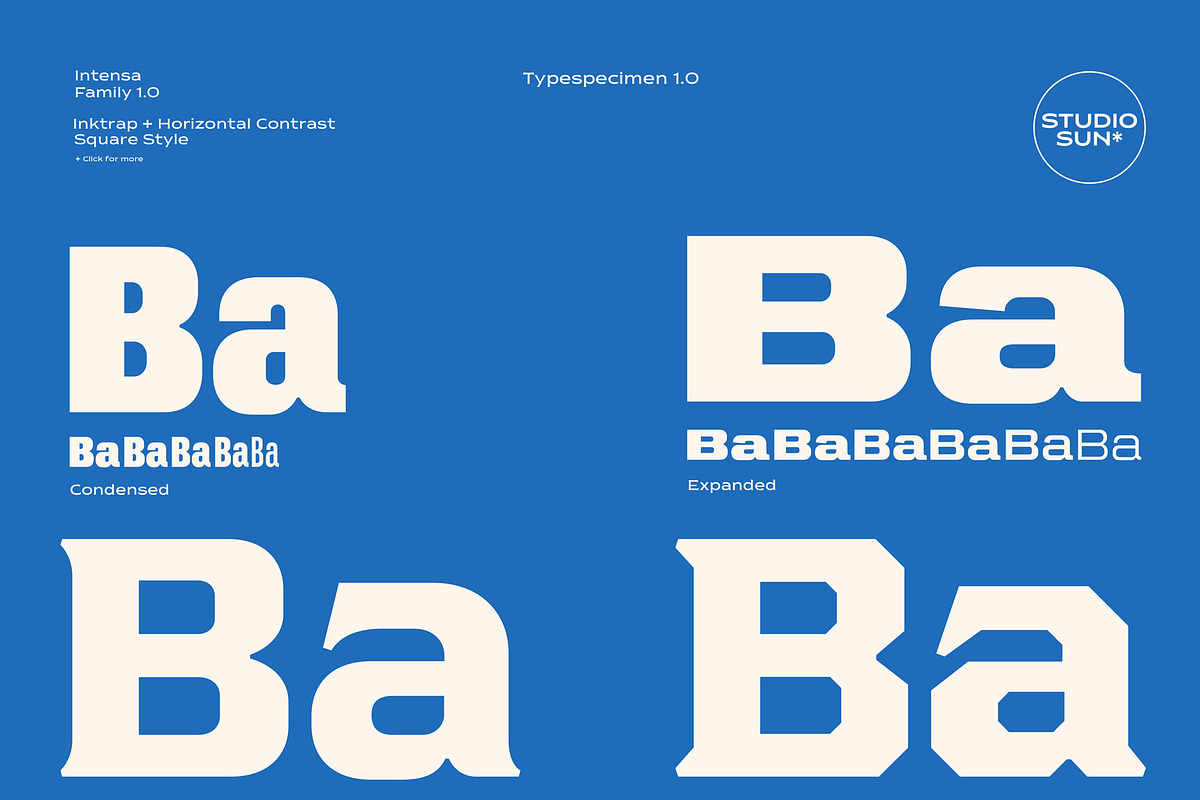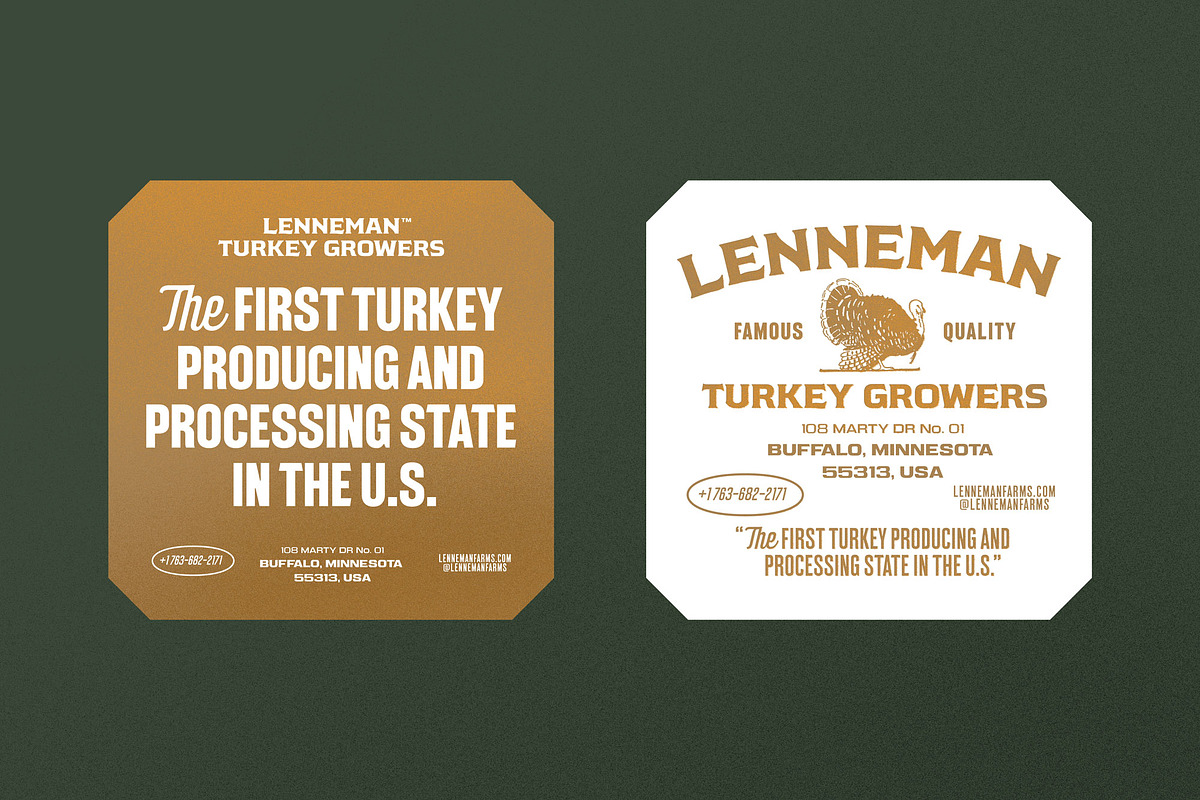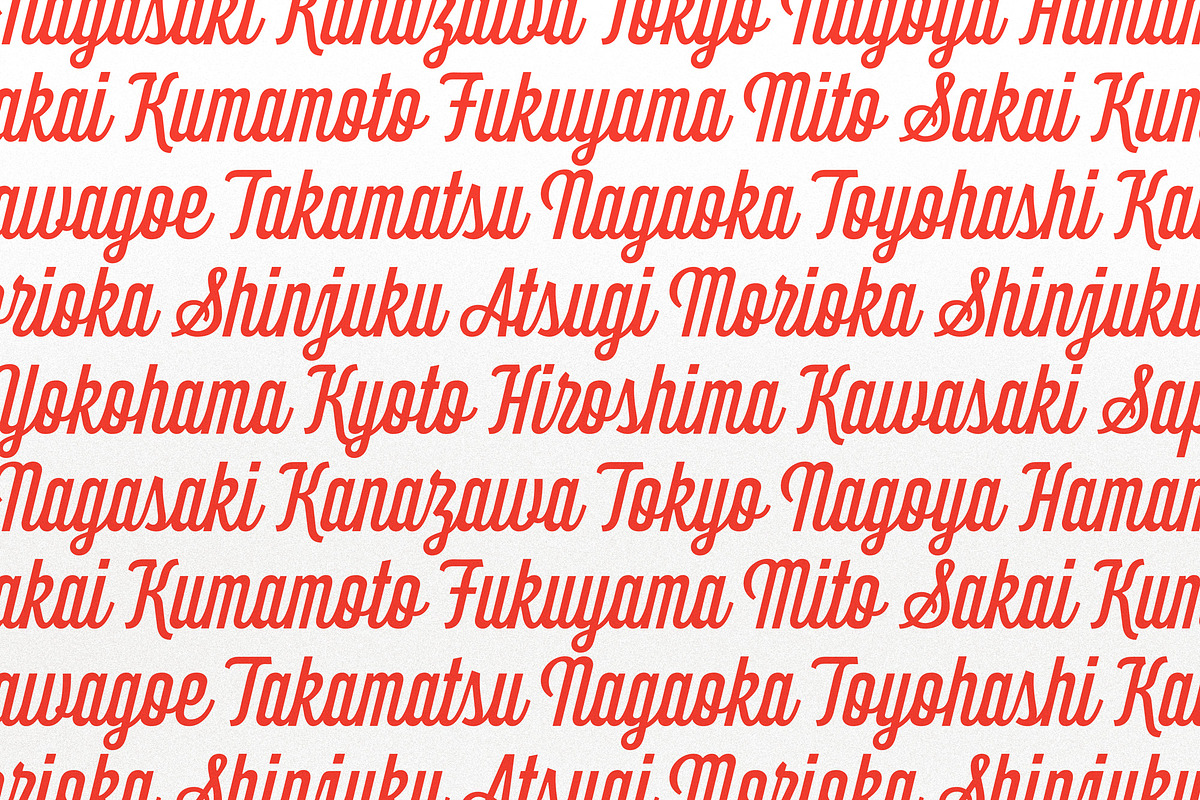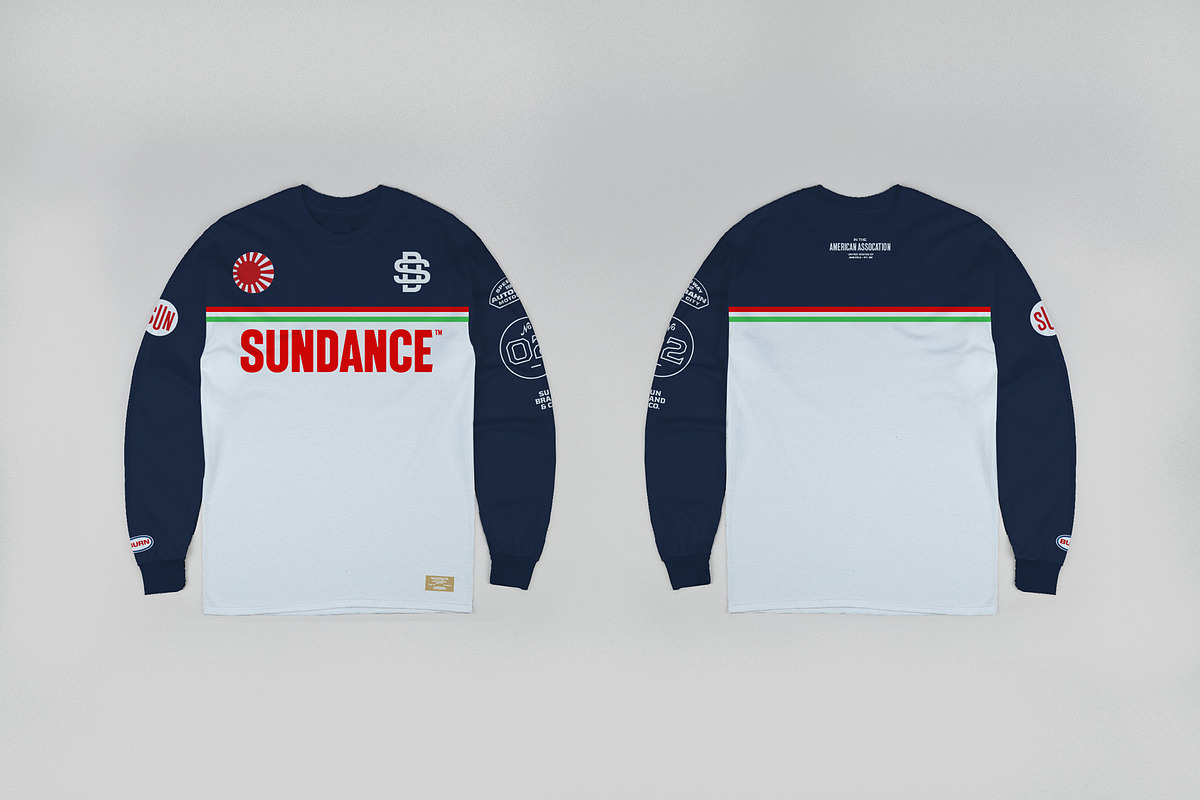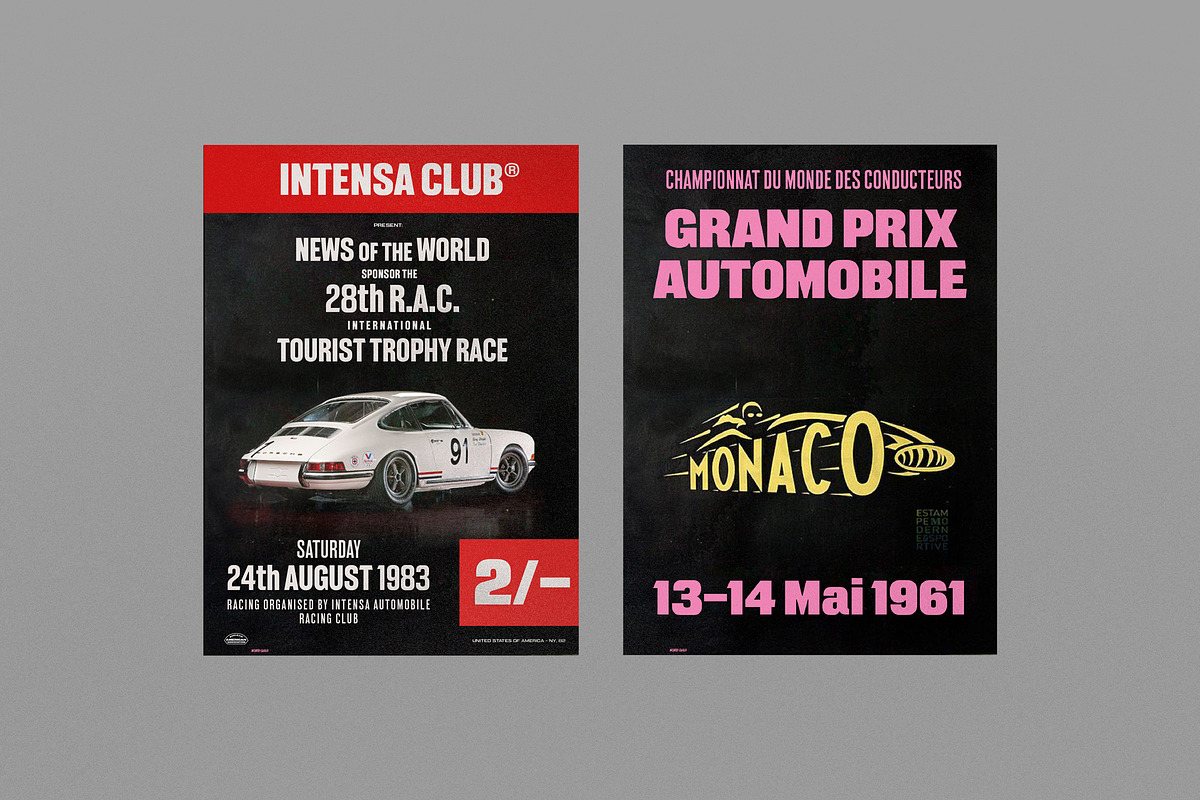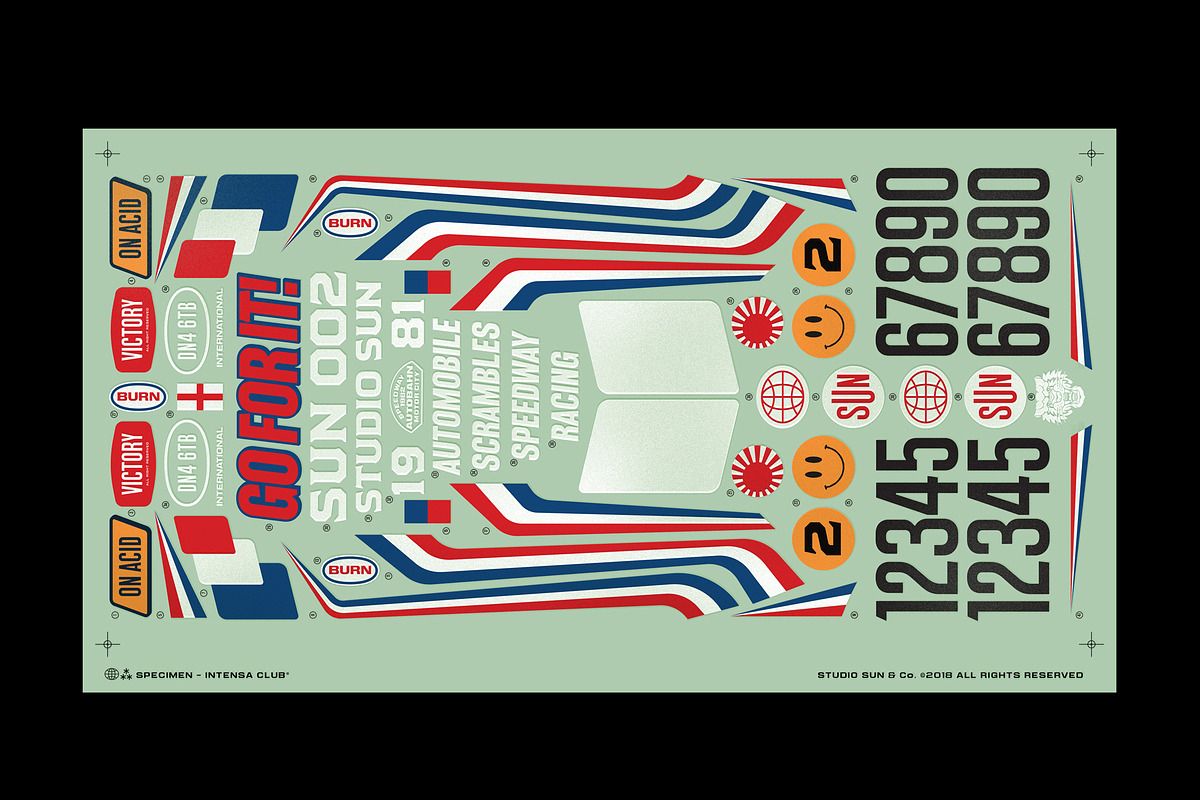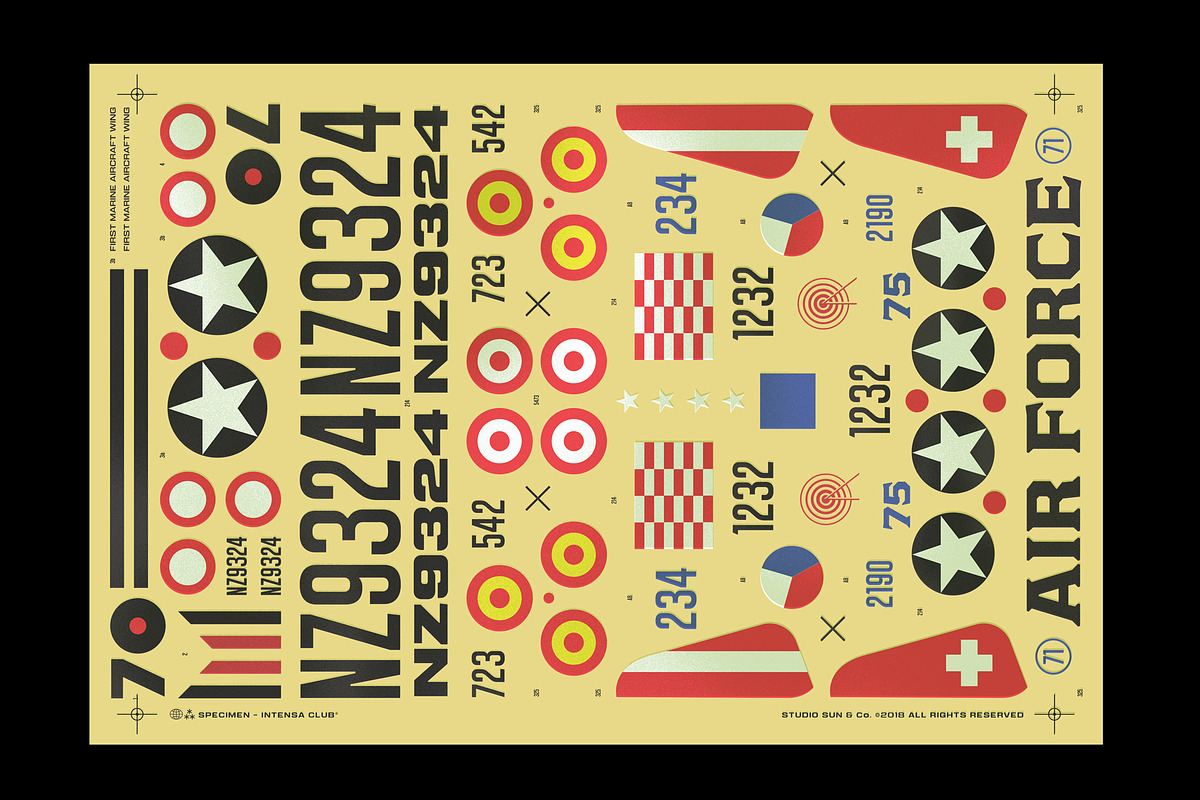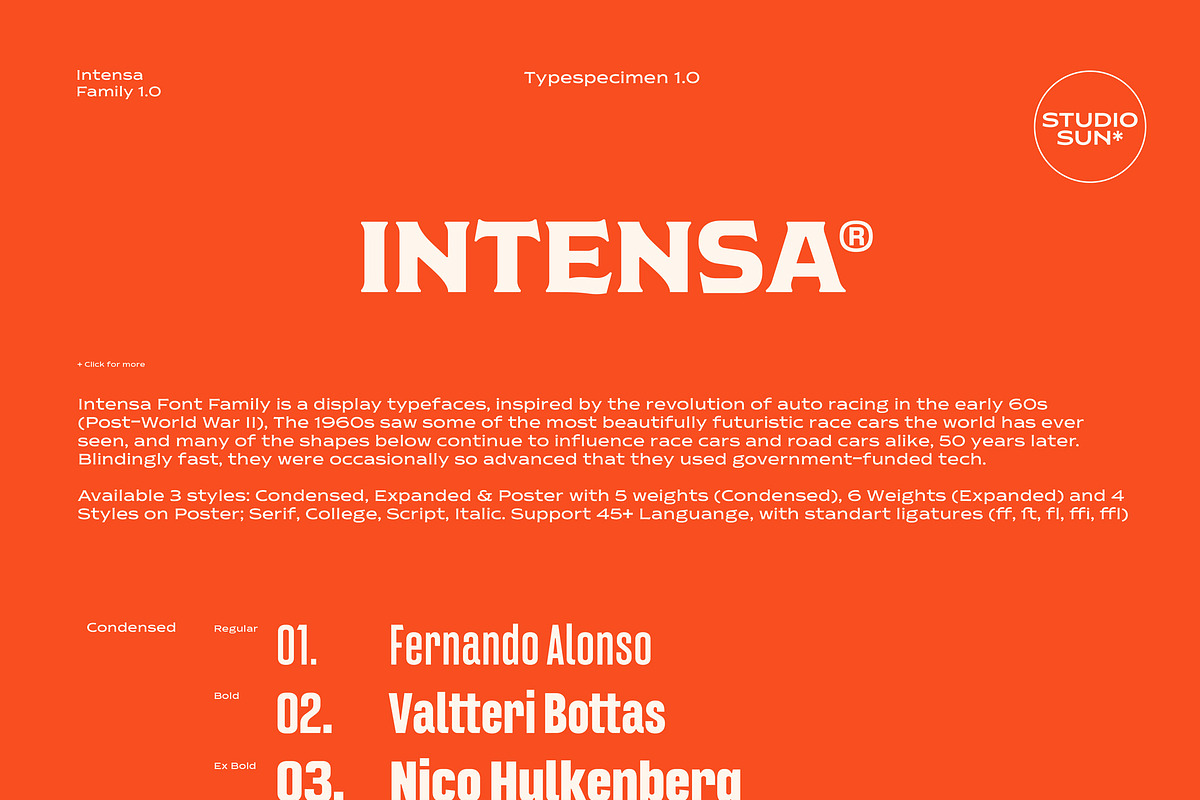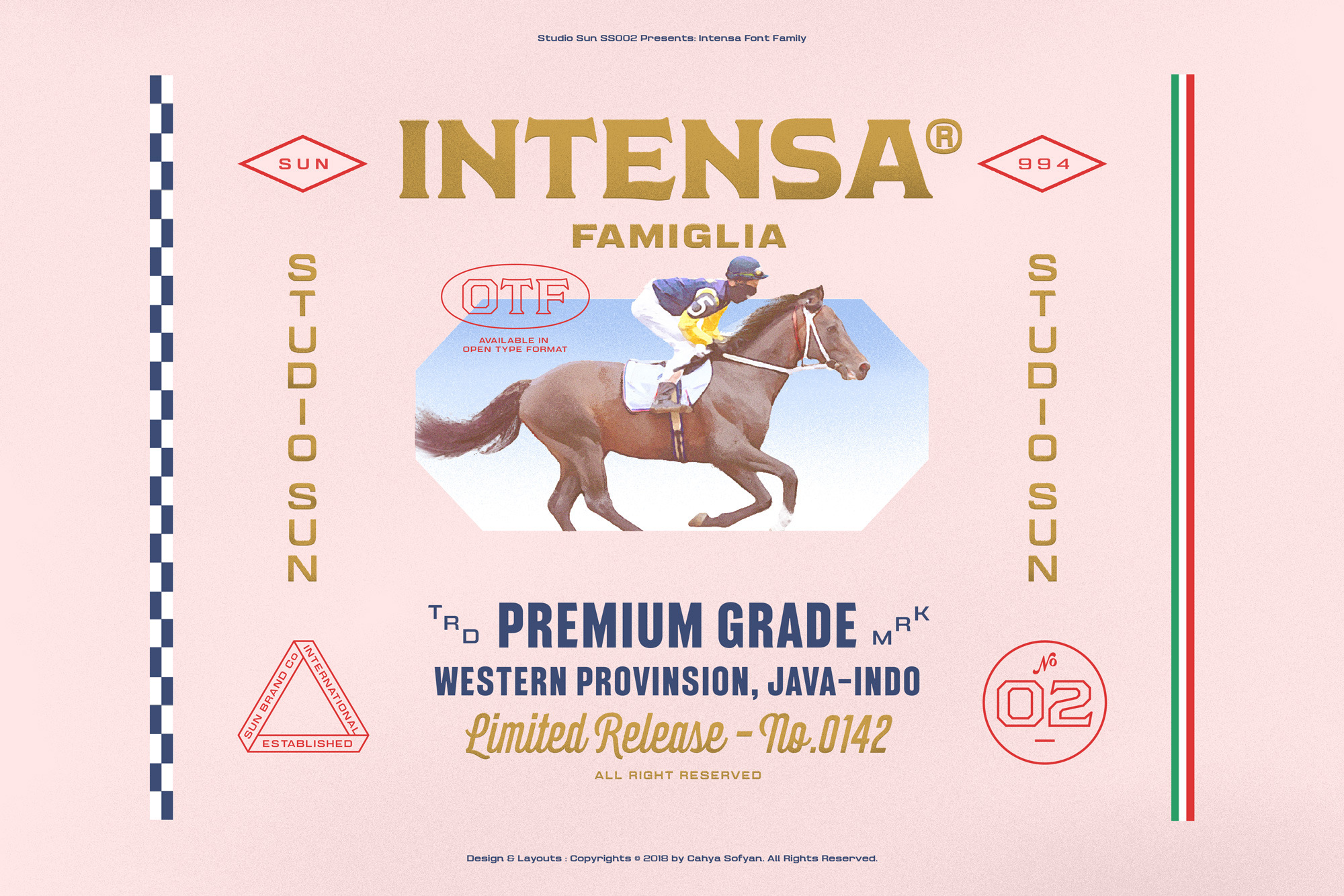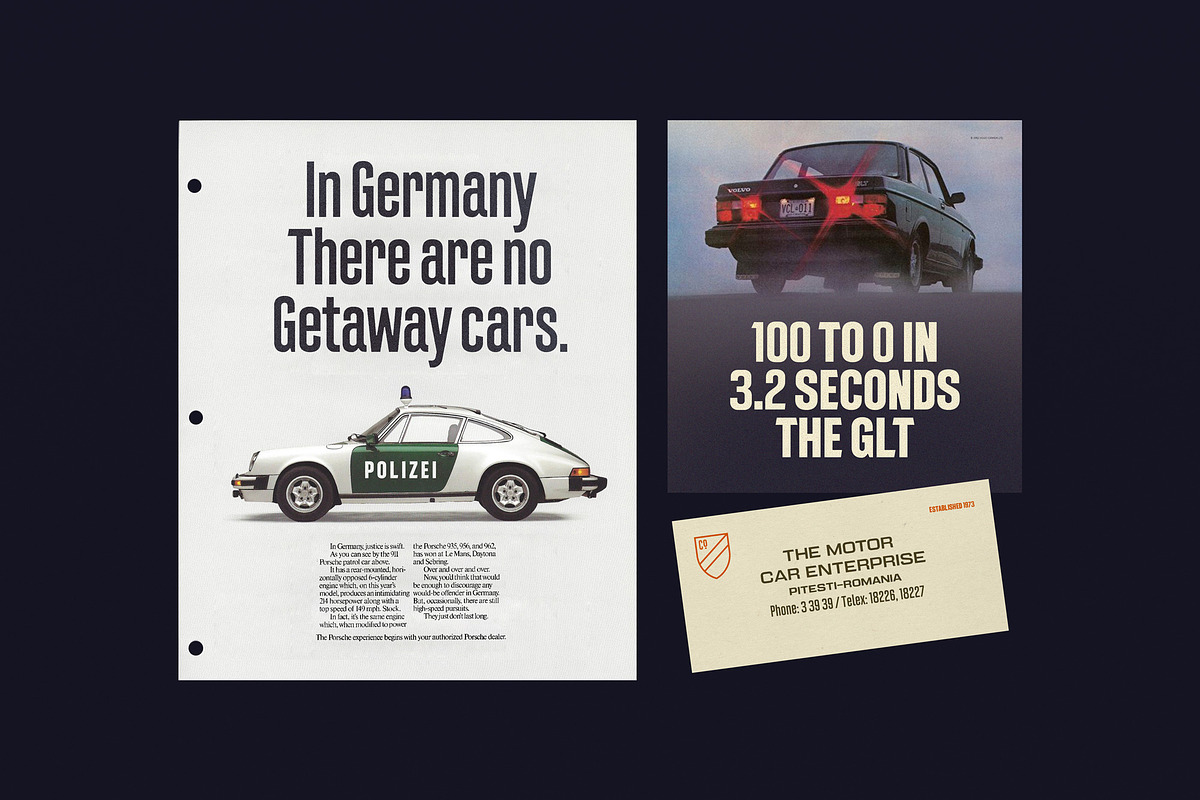
Intensa - Font Family
Intensa Font Family is a display typefaces, inspired by the revolution of auto racing in the early 60s (Post-World War II), The 1960s saw some of the most beautifully futuristic race cars the world has ever seen, and many of the shapes below continue to influence race cars and road cars alike, 50 years later. Blindingly fast, they were occasionally so advanced that they used government-funded tech.
Available 3 styles: Condensed, Expanded & Poster with 5 weights (Condensed), 6 Weights (Expanded) and 4 Styles on Poster; Serif, College, Script, Italic. Support 45+ Languange, with standart ligatures (ff, ft, fl, ffi, ffl)
Condensed
- Intensa Condensed Regular
- Intensa Condensed Bold
- Intensa Condensed Extra Bold
- Intensa Condensed Heavy
- Intensa Condensed Black
Expanded
- Intensa Expanded Light
- Intensa Expanded Regular
- Intensa Expanded Medium
- Intensa Expanded Bold
- Intensa Expanded Extra Bold
- Intensa Expanded Black
Poster
- Intensa Poster
- Intensa College
- Intensa Script
- Intensa Speed (Italic)